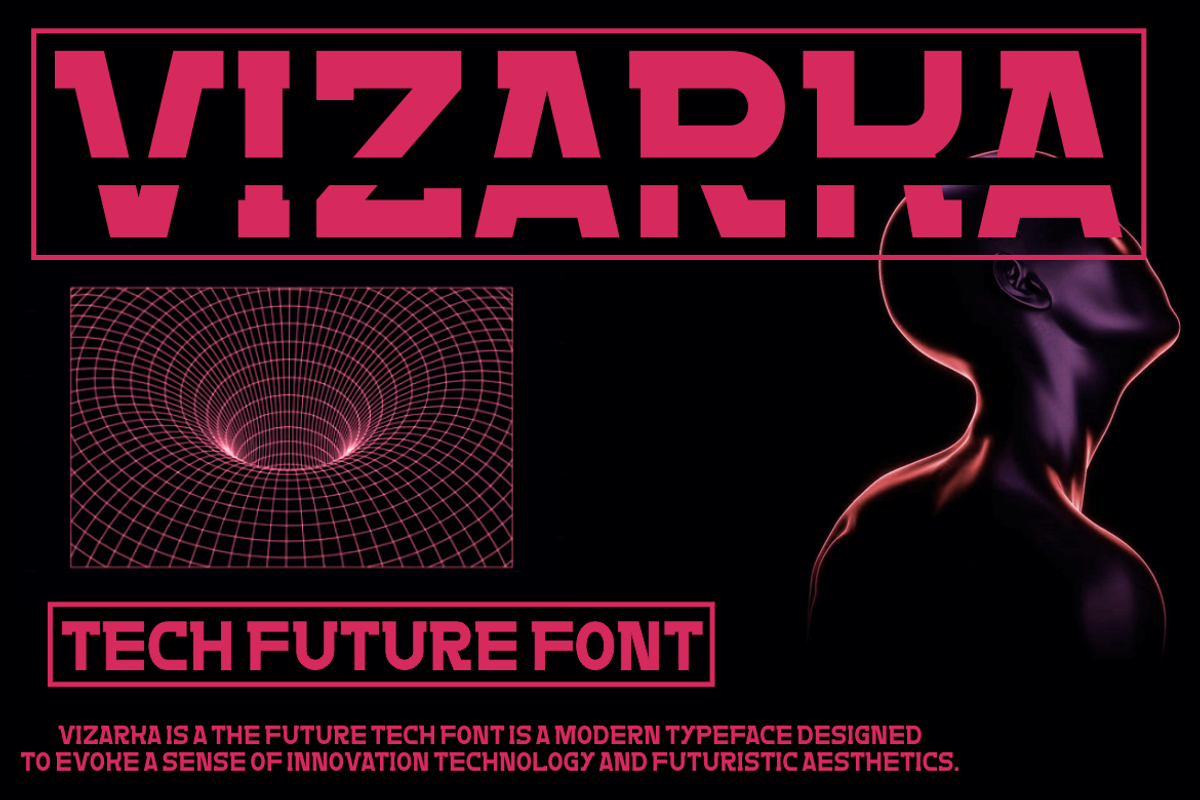
Please note that you must purchase this font for commercial use. You can download Vizarka Font for free, strictly for personal testing purposes only. Vizarka is a bold and edgy display font designed to command attention with its sharp angles, futuristic styling, and geometric structure. Perfect for sci-fi branding, tech-inspired designs, posters, gaming graphics, or bold logo work, Vizarka Font Free Download brings a sleek, modern aesthetic that feels both cutting-edge and stylish.
This font features unique character shapes that give it a distinctive, high-tech personality. It typically includes uppercase letters, numerals, punctuation, and multilingual support—offering versatility for global creative projects.
Whether you’re designing for a video game title, cyberpunk project, or a tech startup, Vizarka delivers the innovation and visual punch your typography needs.